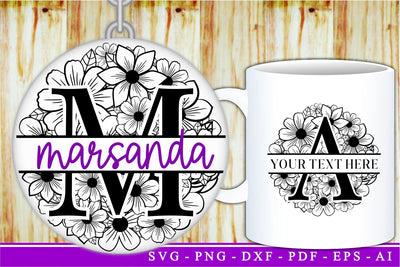
Round Flower Split Alphabet Monograms Letter SVG Files Design, Circle Floral Family alphabet Split Monogram Letter SVG Set A-Z, Wedding Font Split Monogram SVG Designs,
Round Flower Split Monograms Letter SVG Files Design, Circle Floral alphabet Split Monogram Letter SVG Set A-Z, Wedding Font Split Monogram SVG Designs,